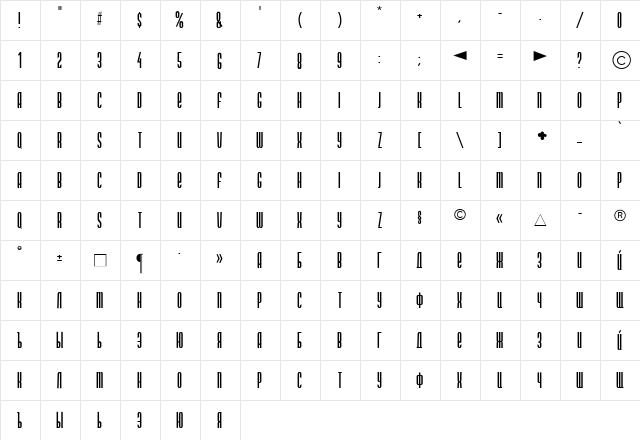
Ultra Vertex16 Extra-condensed Medium
Design Context for Ultra Vertex16 Typeface
Ultra Vertex16 takes a measured approach to typography — its balanced proportions and neutral character make it a reliable workhorse for both digital and print work. The condensed width makes it efficient for tight spaces without sacrificing legibility.